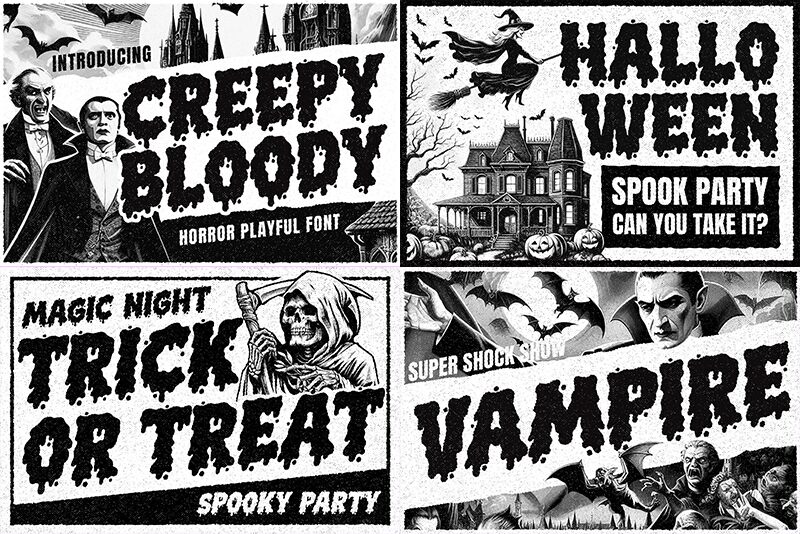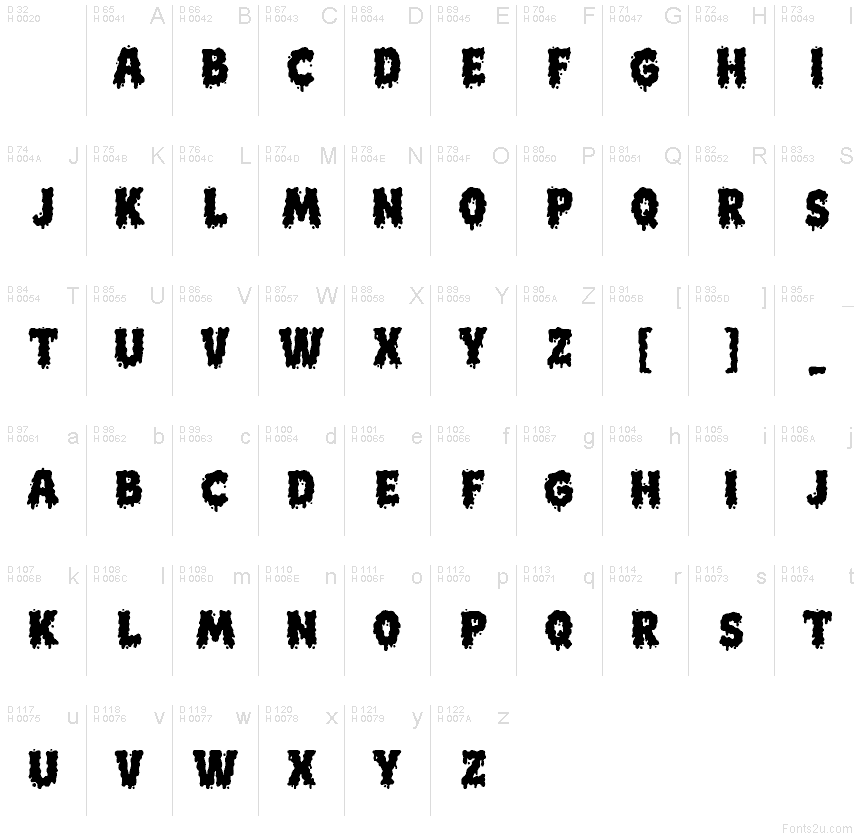
Creepy Bloody Regular
Creepy Bloody font by Blankids is a free scary display font. Thick, inky letters sag with ooze and jagged edges, like a wet stencil dragged across a wall. The heavy silhouettes read fast at a glance, but the drips linger, giving headlines a sticky tension that screams Halloween without looking cheesy.
Using Creepy Bloody, you can punch up haunted house posters, horror movie titles, game splash screens, party invites, YouTube thumbnails, and trick‑or‑treat packaging. Set it large so the drips breathe, and keep tracking tight for extra menace. Pair this free font with a clean condensed sans for details to keep the gore legible.